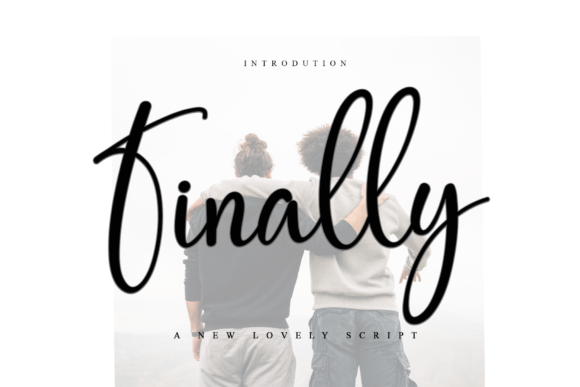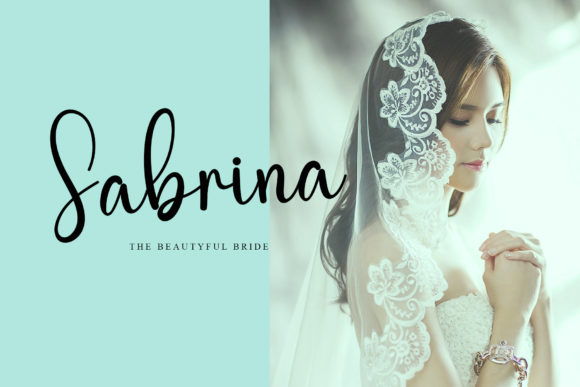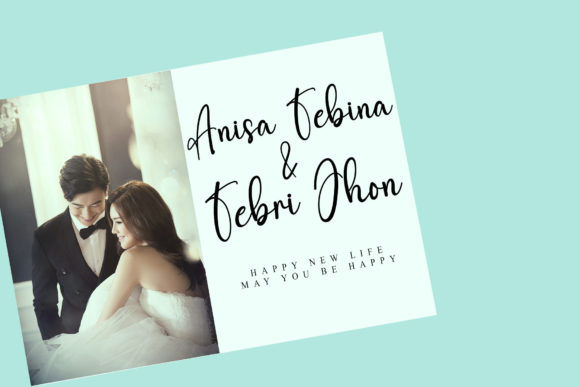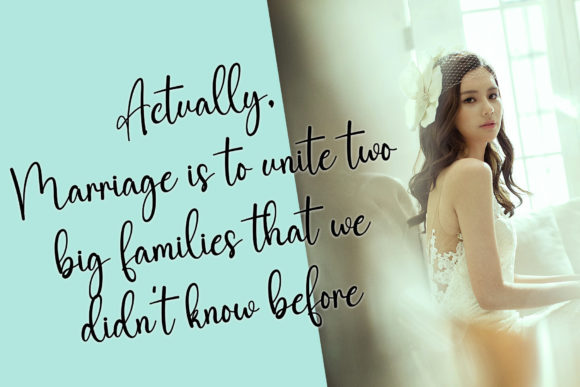
About Finally Font
“Finally” is a superb handwritten font meticulously designed to make your work stand out with its elegant and curvy lines. This versatile font is well-suited for a variety of applications, including product packaging, branding projects, magazine covers, social media graphics, wedding materials, or for creatively expressing words above different backgrounds.
The elegance of “Finally” is conveyed through its handwritten style, adding a touch of sophistication and charm to your designs. The curvy lines contribute to a dynamic and graceful appearance, making it suitable for projects that demand a blend of modern and classic aesthetics.
Imagine “Finally” enhancing product packaging, where its superb handwritten script elevates the overall visual appeal. The font’s elegant and curvy lines have the potential to transform ordinary packaging into a stylish and eye-catching representation of your brand, especially if you’re aiming for a refined and upscale look.
In branding projects, “Finally” becomes a distinctive choice, injecting a unique personality into your visual identity. Its versatility allows it to seamlessly adapt to various design elements, ensuring a cohesive and memorable brand presentation with a hint of timeless elegance.
On social media graphics or magazine covers, “Finally” brings a creative and stylish touch. The curvy lines create a sense of flow, making it visually engaging and suitable for diverse content, from lifestyle to fashion and beyond.
Whether you’re working on a wedding invitation or looking to express words creatively above different backgrounds, “Finally” offers a superb solution with its elegant and curvy lines. Embrace the charm of this handwritten font to elevate your designs and leave a lasting impression on your audience.